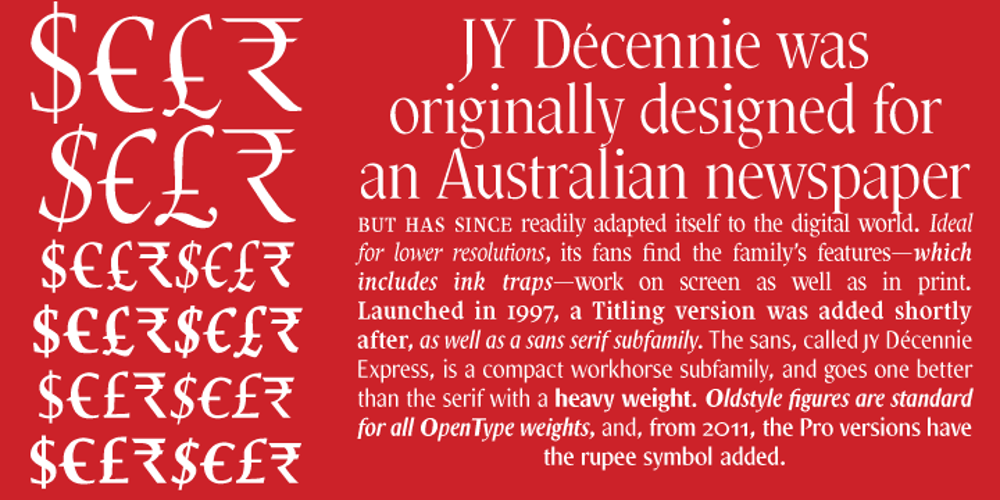
Decennie Express JY Pro Font Family was designed by Jack Yan and published by JY&A. Decennie Express JY Pro contains 6 styles and family package options. JY Décennie Express was developed as a sans serif workhorse complement to JY Décennie. The basic roman design shares characteristics, and in some cases, characters (e, o, and others) with the serif version, making JY Décennie Express work particularly well with its progenitor. The design is friendly and approachable, as opposed to stark (the effect one usually has with Helvetica and other over-used typefaces). On closer inspection, straight lines blend into curves on the outlines: the characters are in fact complex but appear simple.